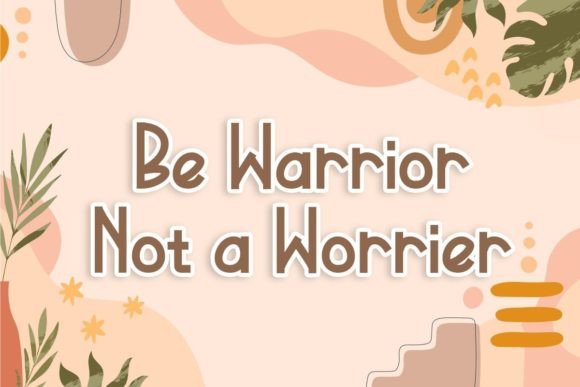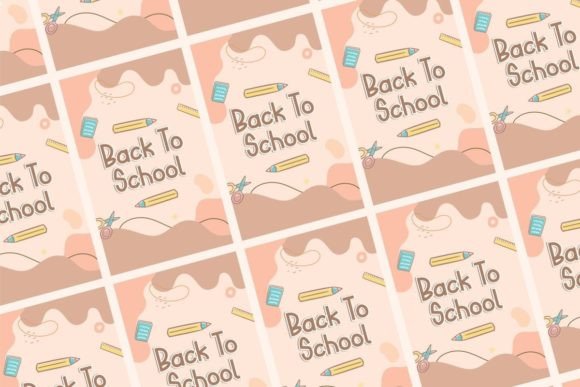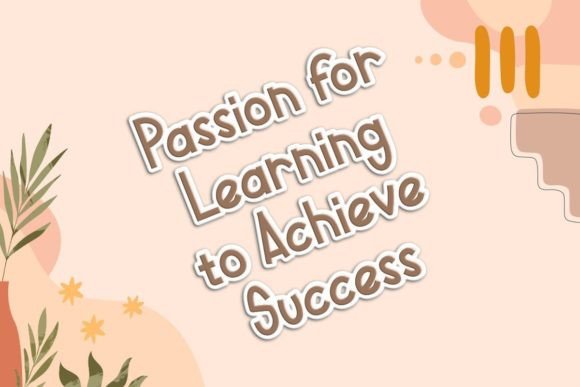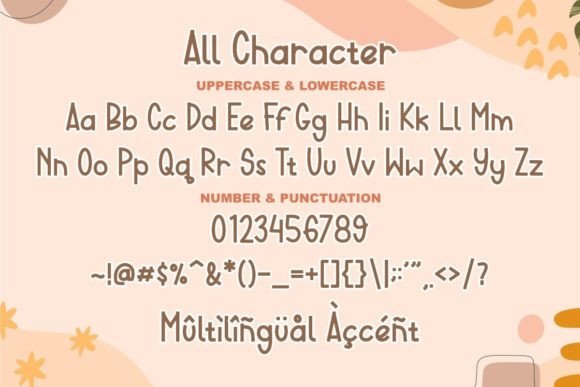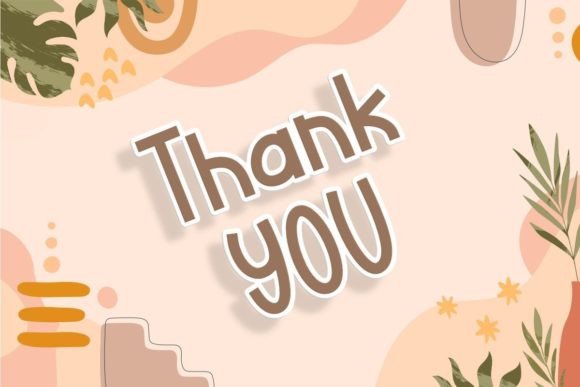
Fabilius Font: The Perfect Choice for Your Creative Projects
Are you a designer or crafter looking for a font that can add a touch of playfulness and youthfulness to your work? Look no further than the Fabilius Font! This display font is designed to bring a sense of fun and energy to your fine prints, making it perfect for projects such as notebook covers, mugs, and more.
What is Fabilius Font?
Fabilius Font is a modern display font that is characterized by its simple and playful design. The font features rounded edges and a carefree vibe that makes it perfect for creative projects. Its youthful energy is sure to capture the attention of your audience and leave a lasting impression.
Key Features of Fabilius Font
- Simple and Playful Design: Fabilius Font features a simple and playful design that is perfect for creative projects.
- Youthful Vibes: The font’s rounded edges and carefree vibe give it a youthful energy that is sure to appeal to a young audience.
- Display Font: Fabilius Font is designed as a display font, making it perfect for use in fine prints such as notebook covers, mugs, and more.
- Easy to Read: Despite its playful design, Fabilius Font is easy to read, making it perfect for use in a variety of creative projects.
Uses of Fabilius Font
Fabilius Font is a versatile font that can be used in a variety of creative projects. Here are some ideas to get you started:
- Notebook Covers: Add a touch of playfulness to your notebook covers with Fabilius Font.
- Mugs: Create fun and colorful mug designs with Fabilius Font.
- Posters: Use Fabilius Font to create eye-catching posters for events, promotions, and more.
- Social Media Graphics: Add a touch of personality to your social media graphics with Fabilius Font.
Why Choose Fabilius Font?
There are many fonts to choose from, but Fabilius Font stands out from the rest. Here are just a few reasons why:
- Unique Design: Fabilius Font features a unique design that is sure to capture the attention of your audience.
- Versatile: Fabilius Font can be used in a variety of creative projects, from notebook covers to social media graphics.
Tips for Using Fabilius Font
Here are a few tips for using Fabilius Font in your creative projects:
- Use it in Large Sizes: Fabilius Font is designed as a display font, so it’s best used in large sizes.
- Experiment with Colors: Fabilius Font looks great in a variety of colors, so don’t be afraid to experiment.
- Pair it with Other Fonts: Fabilius Font can be paired with other fonts to create a unique and interesting design.